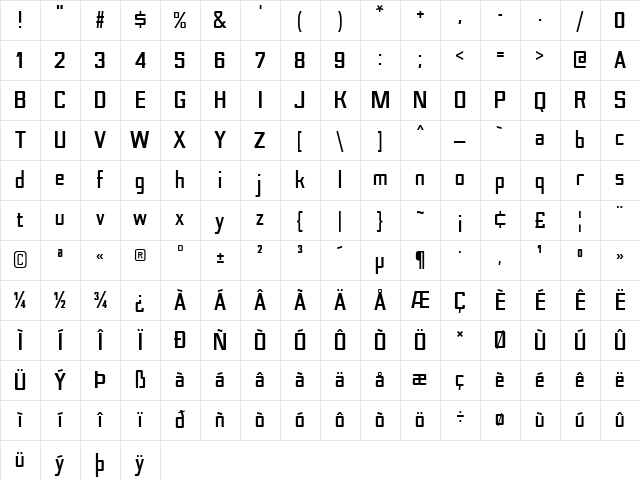
Nesobrite Semi-Condensed Black Free Font
Nesobrite Semi-Condensed Black
Style: Semi-Condensed Black
Complete Nesobrite Semi-Condensed Black glyph index. Displaying only characters natively supported by Nesobrite Semi-Condensed Black font.
Design Context for Nesobrite
Nesobrite is a composed and adaptable typeface that performs quietly and consistently across a wide range of design contexts. Its narrow stance lets it pack a punch even in space-constrained designs.